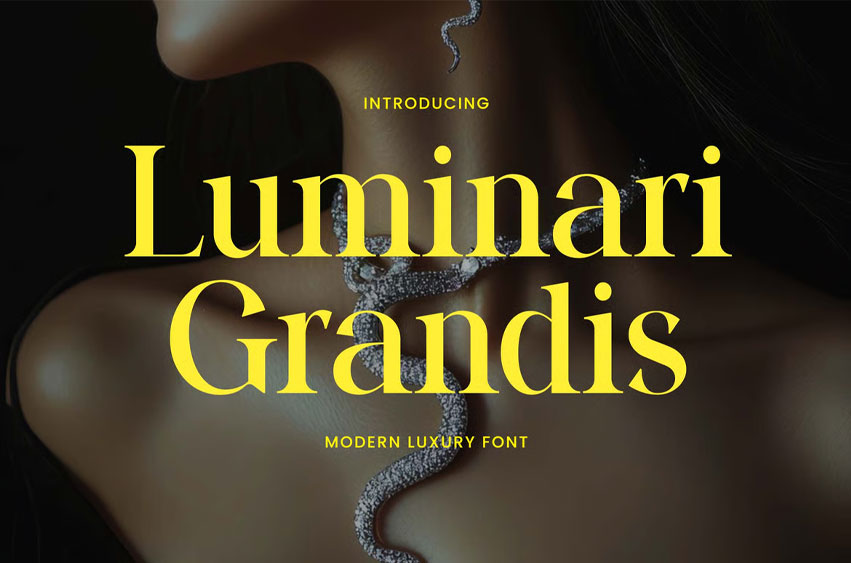
Luminari Grandis Font Modern Luxury Font that feels beautiful classy, elegant, and modern. This font is perfectly suited for a wide variety of projects, such as signature, stationery, logo, wedding, typography quotes, magazine or book covers, website headers, branding, packaging design, and more.
Also, fashion-related branding or editorial design displays both masculine and feminine qualities.